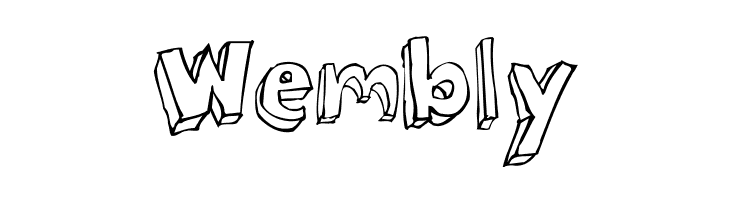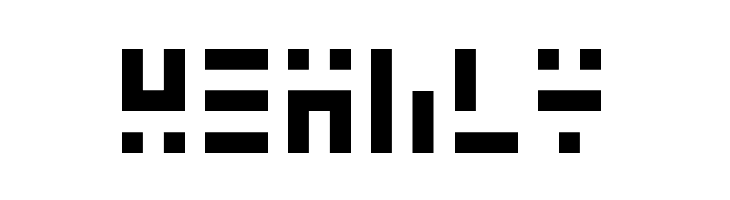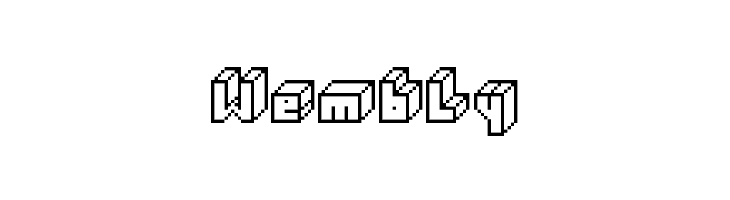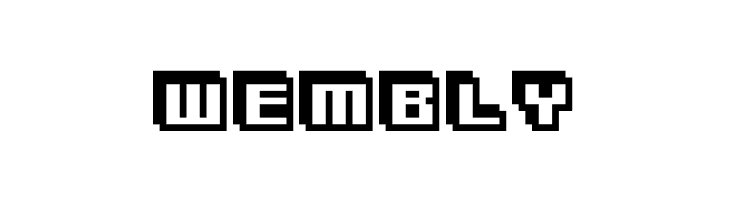
A bold, 3D-effect font with a strong, blocky style ideal for dynamic displays.
A bold, 3D pixelated font with a geometric, retro style.
A bold, 3D hand-drawn font with a playful and dynamic style.
A bold, pixelated font with a retro digital style.
A bold, geometric font with a futuristic and cohesive design.
A bold, geometric font with sharp angles and dynamic cutouts.
A bold, distressed font with a vintage, industrial feel.
A bold, distressed font with a rugged, vintage appearance.
A geometric, blocky font with a futuristic, digital style.
A bold, geometric font with a futuristic, digital style.
A bold, distressed font with a gritty, urban aesthetic.
A dot matrix style font with a modern, digital appearance.
A modern, dot-based font with a playful and unique style.
A modern, pixelated font composed of 3x3 dot grids, offering a playful and tech-inspired aesthetic.
A modern, tech-inspired font using a 3x3 dot matrix outline.
A pixelated, retro-style font with a blocky, geometric design.
A pixelated, monospaced font with a retro digital aesthetic.
A bold, 3D geometric block font with a modern, futuristic style.
A pixelated, geometric font with a retro digital aesthetic.
A bold, geometric, italic font with a futuristic and dynamic style.
A geometric, pixelated outline font with a retro digital aesthetic.